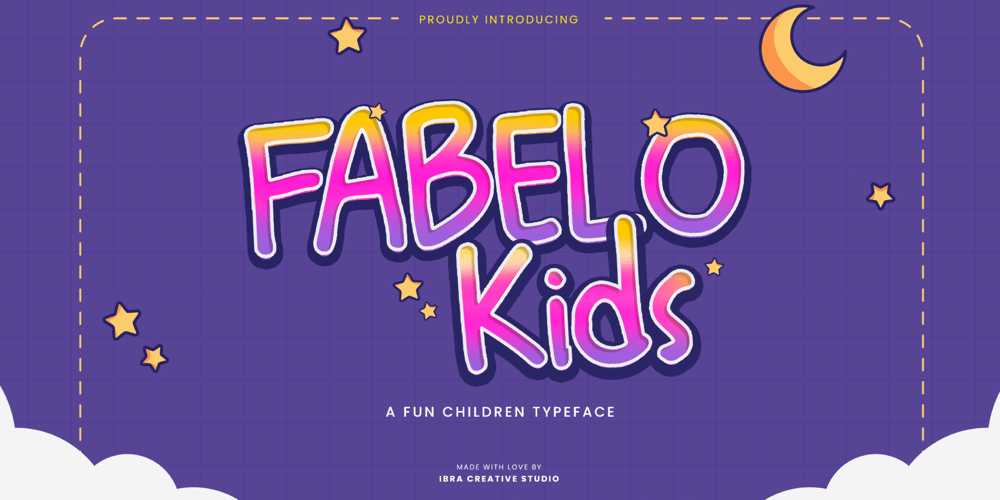
Fabelo Kids Font Family was designed by Roisatul Azizah and published by IbraCreative. Fabelo Kids contains 1 styles and family package options. Fabelo Kids is a delightful and playful children’s typeface that sparks imagination and brings joy to any design. With its whimsical letterforms and charming details, Fabelo Kids captures the essence of childhood wonder and innocence. Each letter has a friendly and inviting nature, inviting young readers on a journey of discovery. Whether used in children’s books, educational materials, or playful designs, Fabelo Kids adds a touch of magic and excitement to the visual experience. Its vibrant colors and energetic shapes make it a perfect choice for capturing the attention and imagination of young minds, creating a world where learning becomes an adventure. Fabelo Kids is a font that celebrates the joy and creativity of childhood, inspiring young readers to embrace the beauty of words and storytelling.